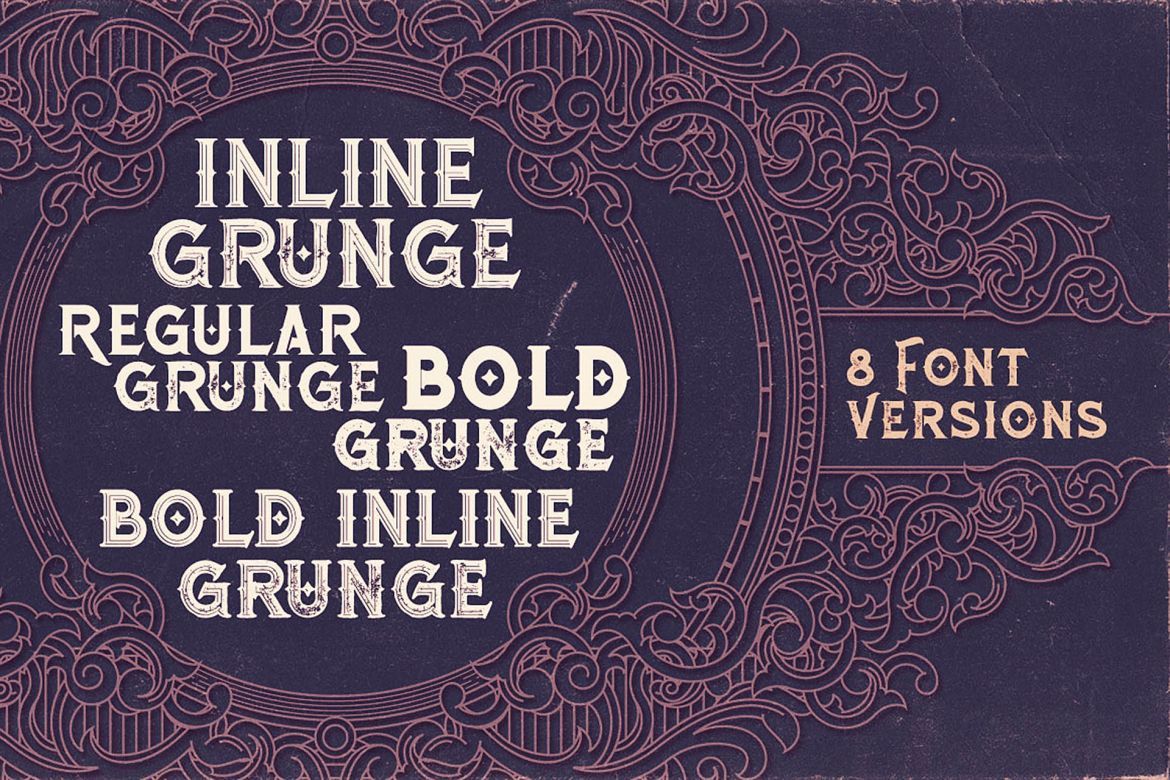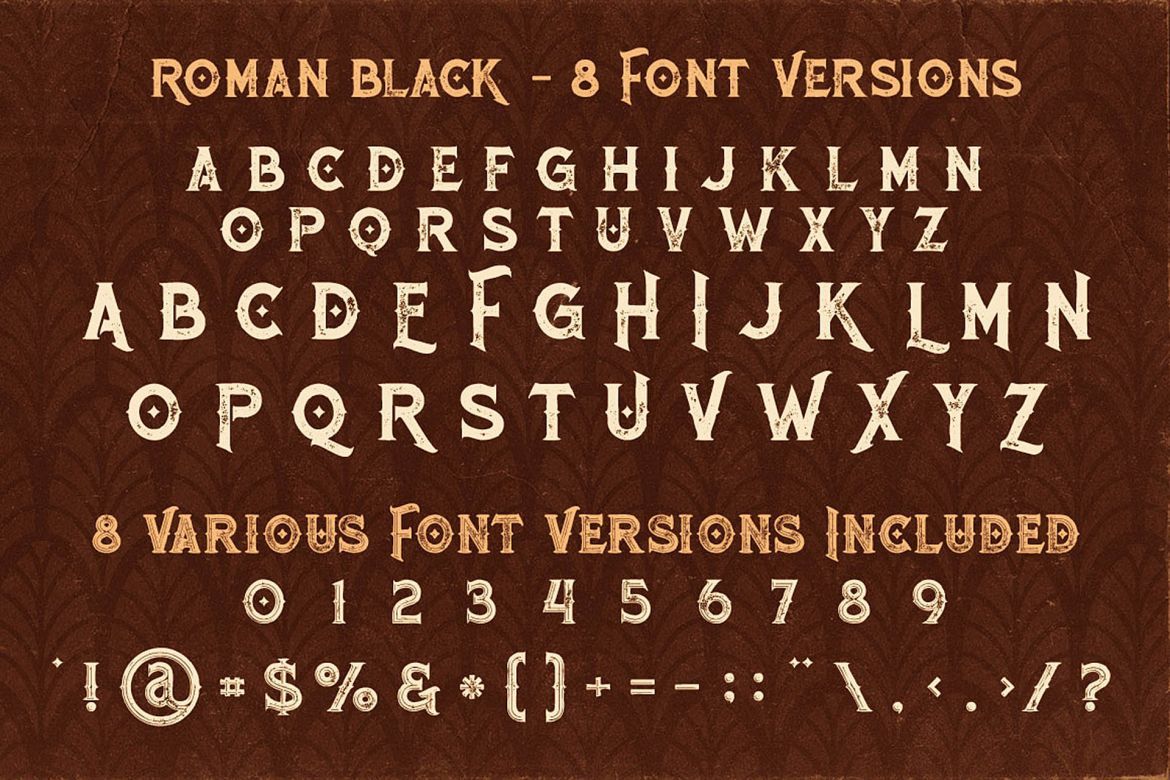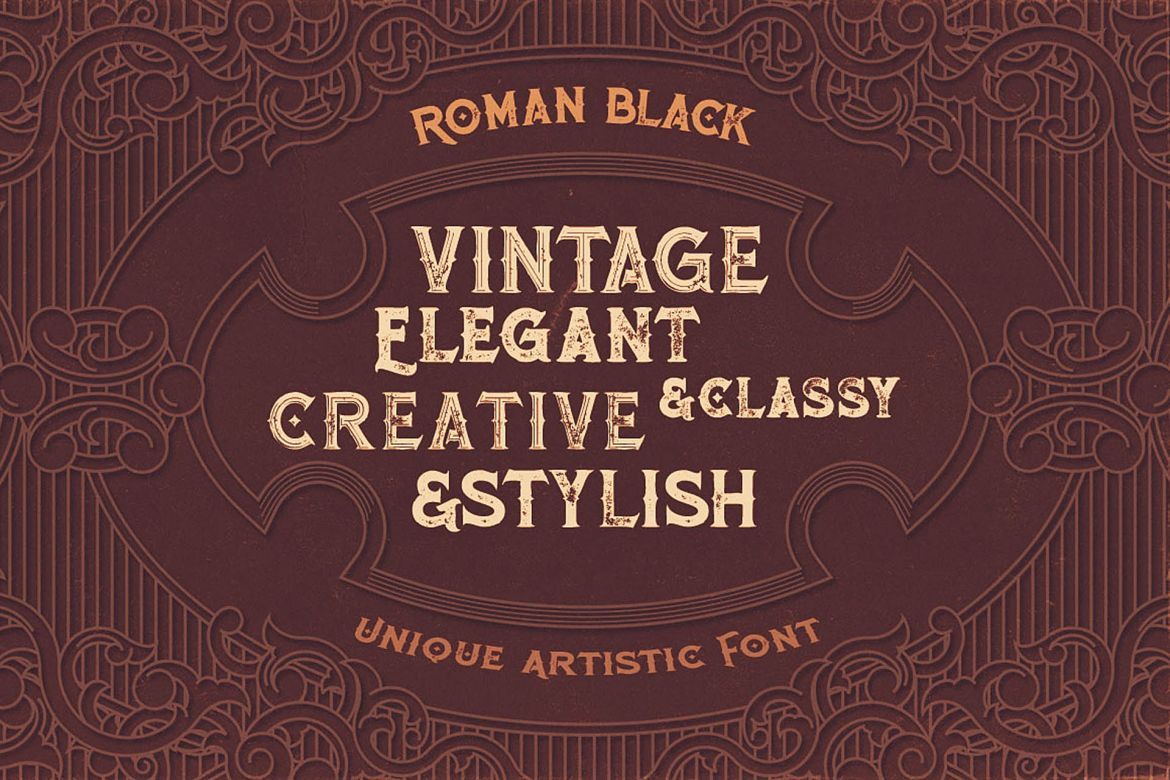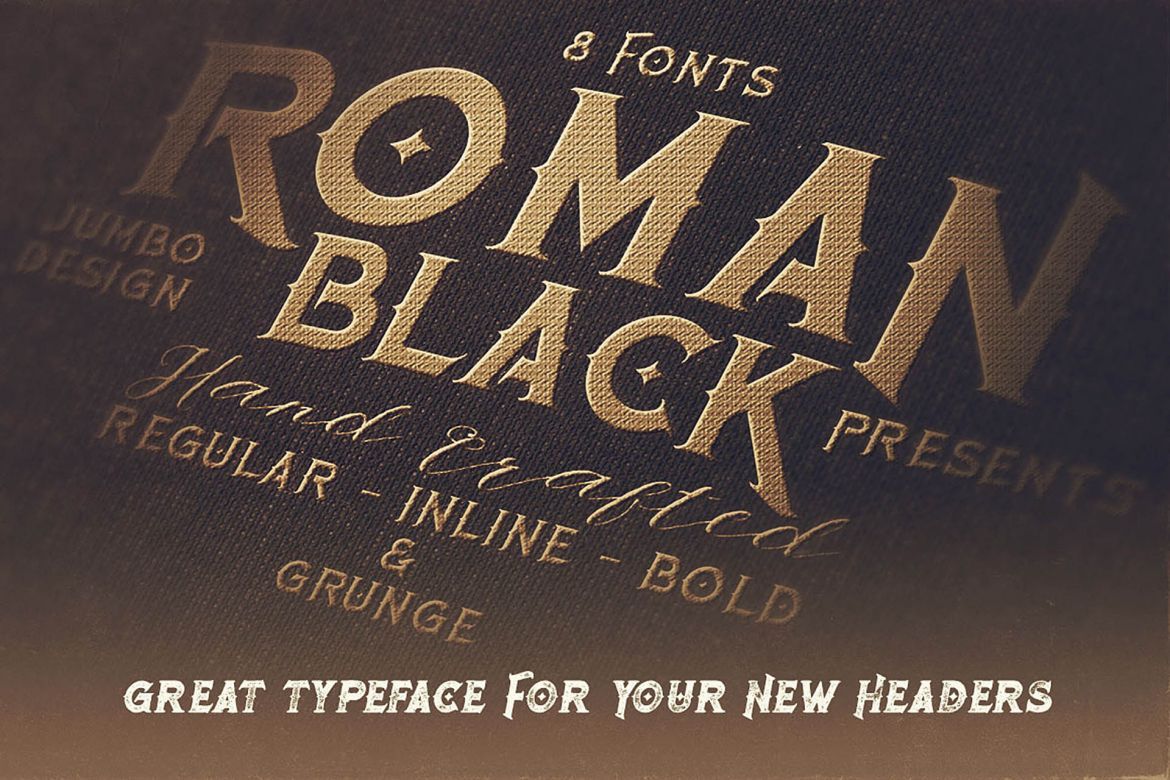
Roman Black - 8 Display Fonts
Unique vintage & ornamental style custom serif font with 8 styles: regular and grunge, inline and inline grunge, bold and bold grunge, bold inline and bold inline grunge.